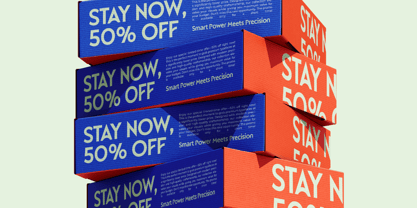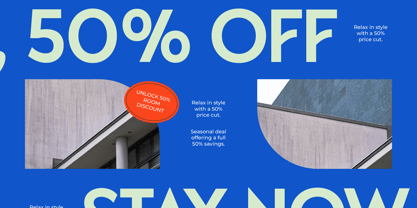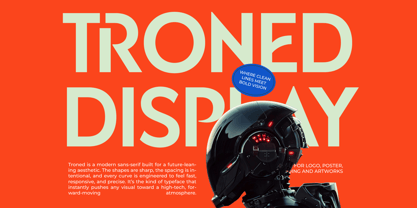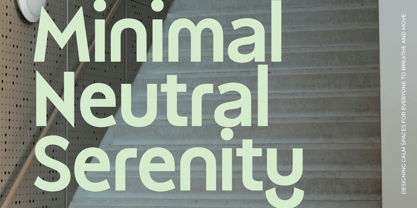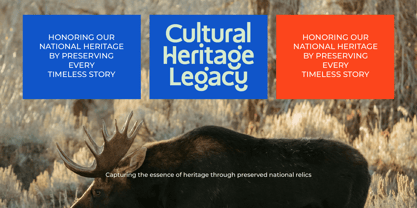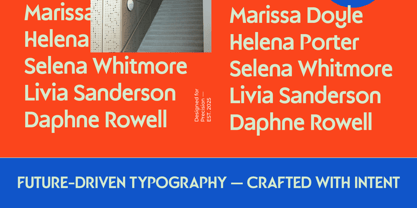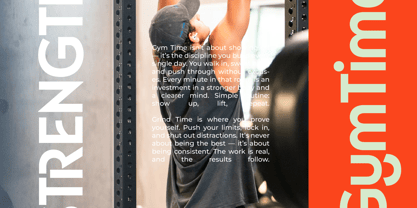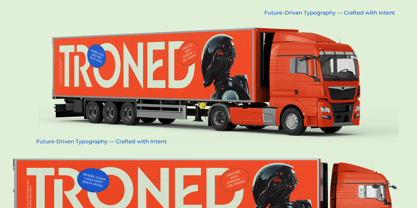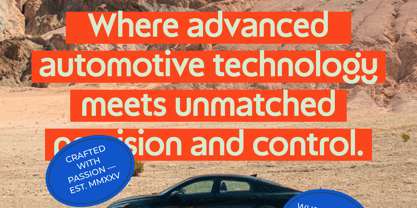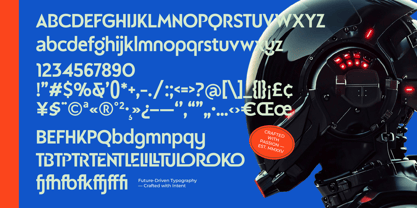
Troned
A família de fontes Troned foi desenhada por Edy Subiyanto e publicada pela Jaruka Creative. Troned contém 1 estilos. Saiba mais sobre esta família
TRONED DISPLAY — Future-Driven Typography
Where clean lines meet bold vision. Troned is a modern sans-serif display typeface engineered for a fast, responsive, and forward-moving aesthetic. Designed with precision and crafted with intent, Troned features sharp geometric shapes, intentional letter spacing, and sleek curves that instantly push any visual work into a high-tech, futuristic atmosphere.
Key Features & Visual Highlights
• Future-Driven Aesthetic: Clean, sharp geometry blended with unique circular stem details on letters like g, y, a, and R.
• Versatile Character Set: Complete uppercase and lowercase alphabets, numerical sets, punctuation, symbols, and specialized ligatures designed for seamless alignment.
• Bold Display Impact: Performs effortlessly on massive display scale—from large-format vehicle graphics to editorial headlines.
• High Legibility Across Media: Crisp layout balance that remains legible in fine-print body blocks, modern packaging, and promotional banners.
Designed For Versatility
As shown throughout the preview imagery, Troned adapts seamlessly across diverse design domains:
• Logos & Branding: Gives tech startups, automotive brands, and modern institutions a bold, recognizable identity.
• Logistics & Vehicle Graphics: Perfect for high-impact fleet wraps, shipping containers, and industrial visuals.
• Architectural & Environmental Design: Brings a sleek, minimalist vibe to spatial design, signage, and wayfinding.
• Posters & Artworks: Dynamic typographic forms command attention on posters, editorial spreads, and digital artwork.
• Packaging & Retail: Delivers a modern, premium feel for merchandise boxes, discount graphics, and retail promotions.